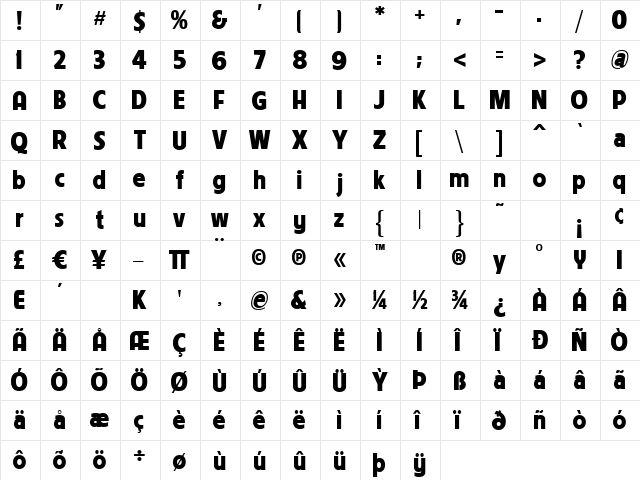
LHF American Sans Regular
Design Context for LHF American Sans Typeface
LHF American Sans is a composed and adaptable typeface that performs quietly and consistently across a wide range of design contexts.